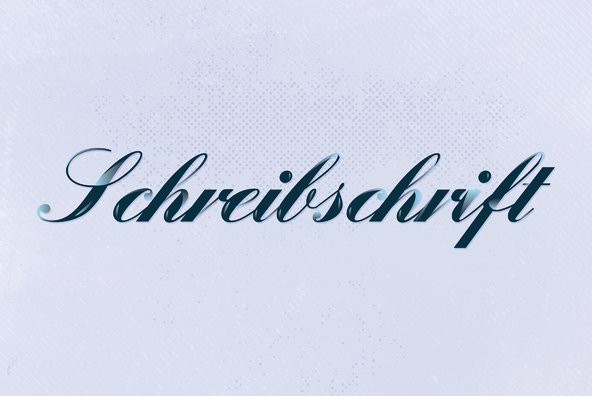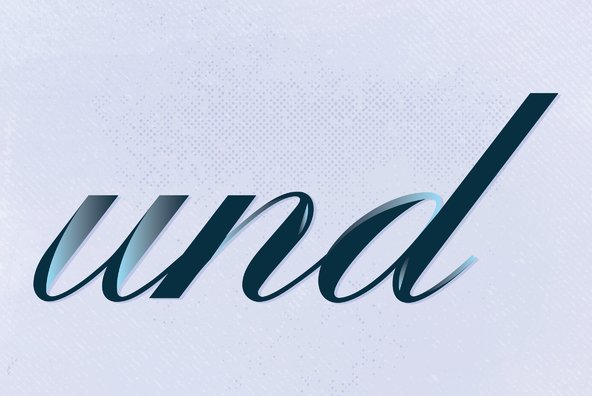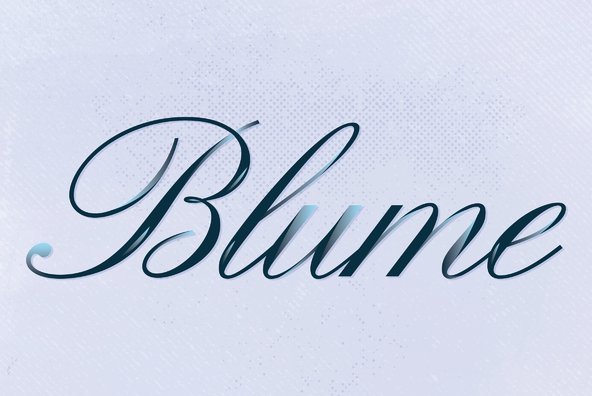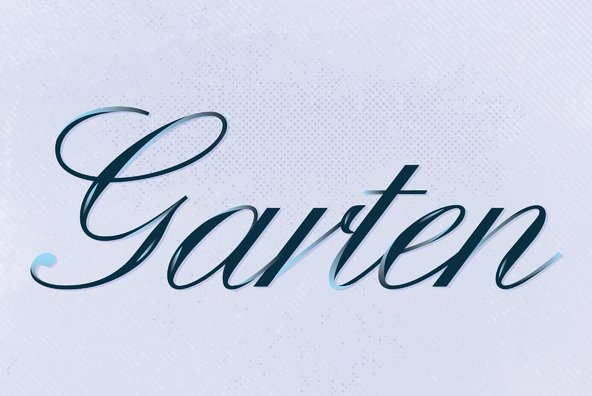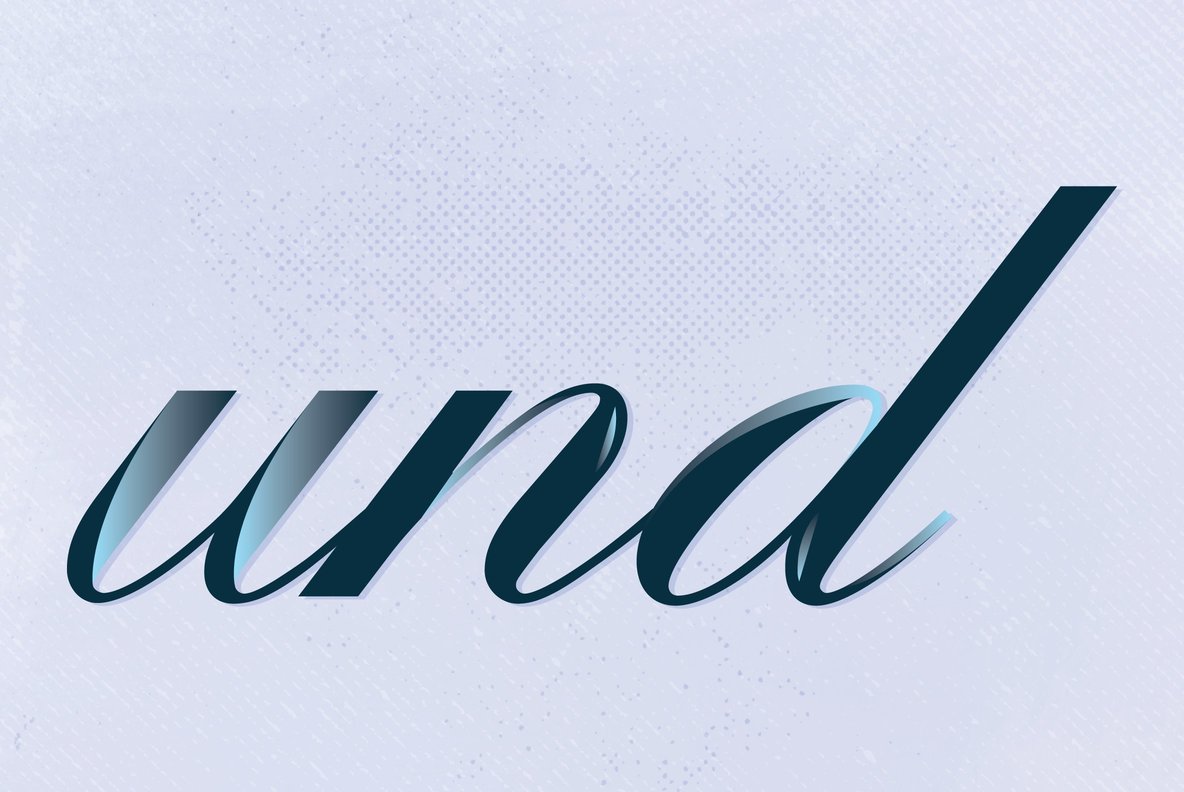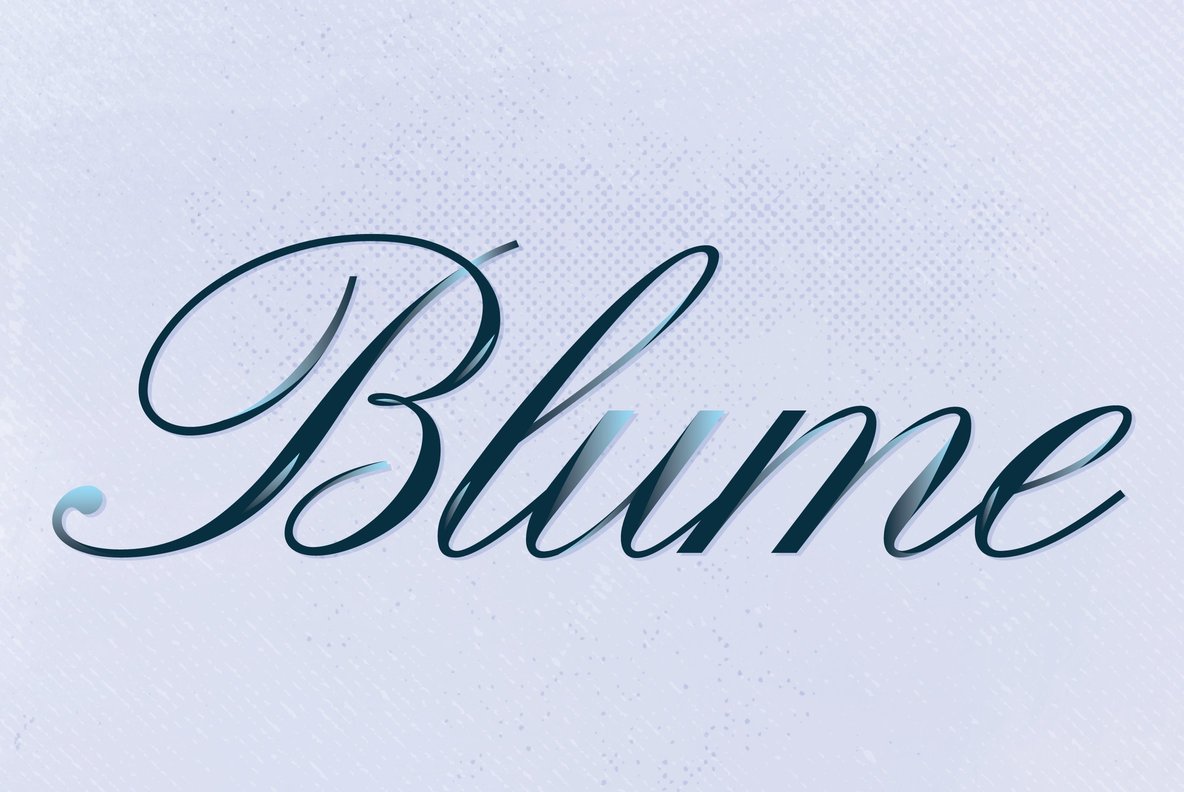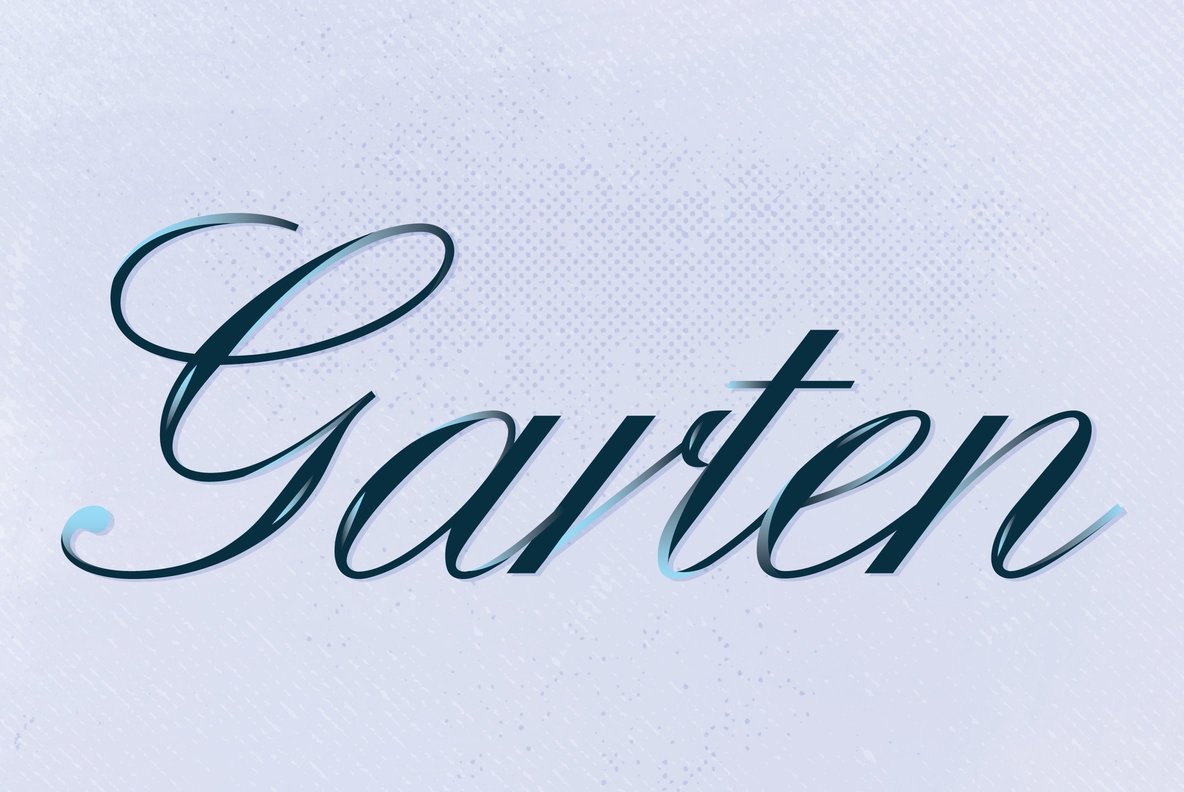
Englische Schreibschrift
Englische Schreibschrift is a unique and elegant script font release by URW. Contains language support for West, East, Turkish, Baltic, and Romanian.